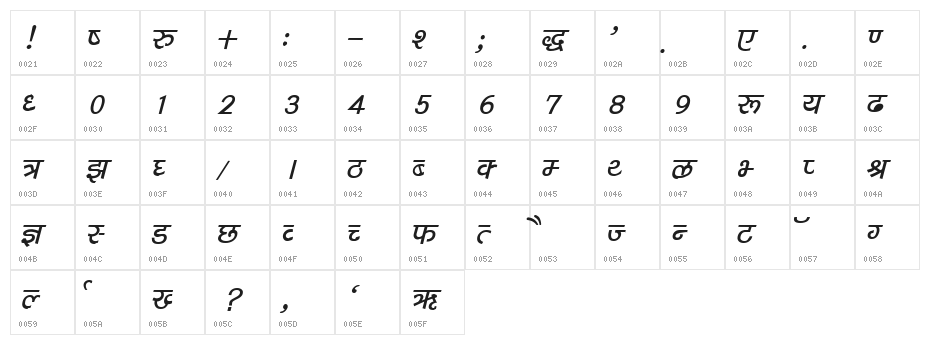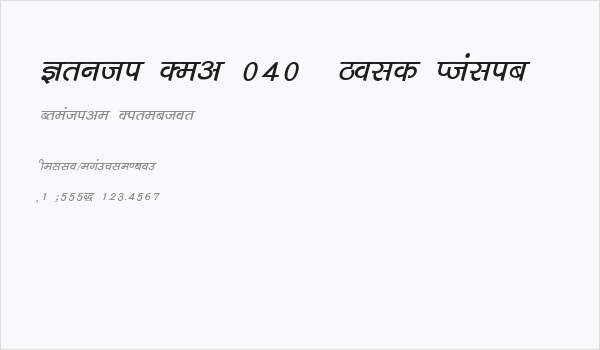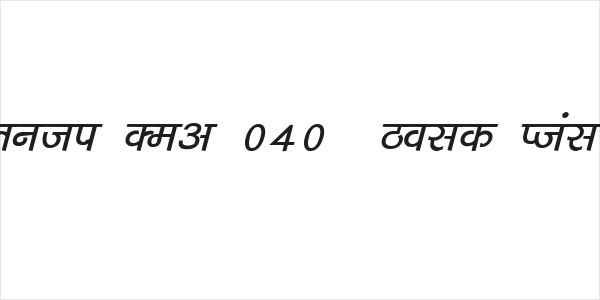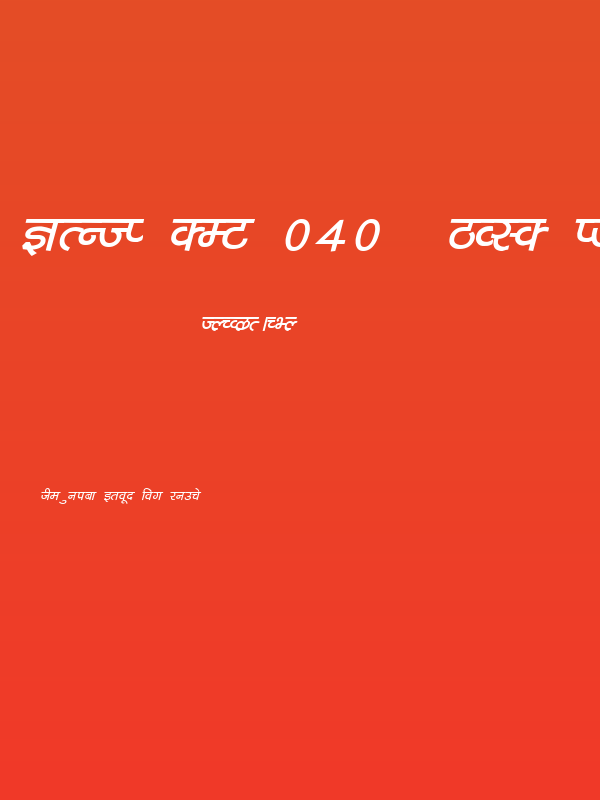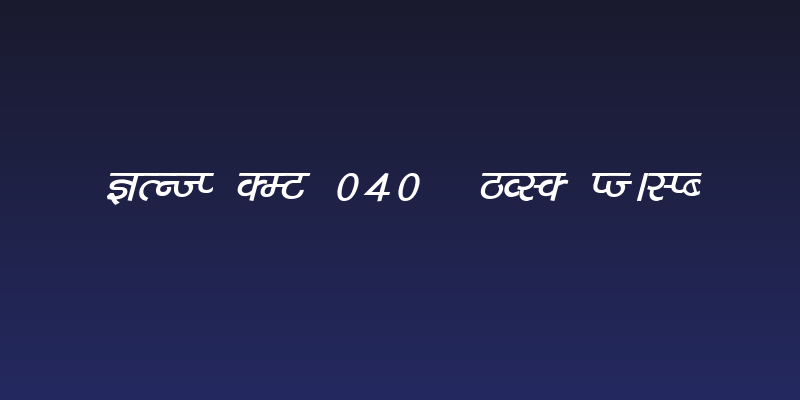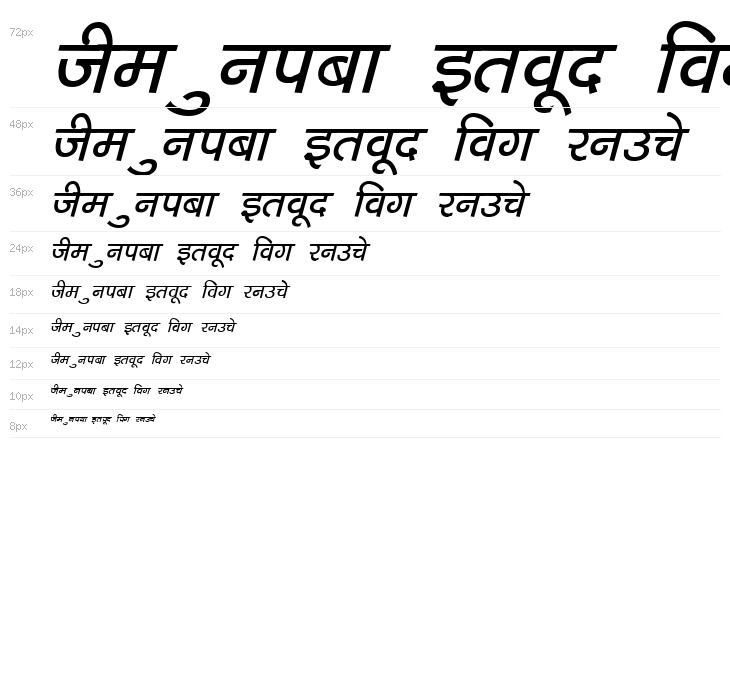
Kruti Dev 040 Bold Italic Font
Kruti Dev 040 Bold Italic Description
This font is a bold and italicized typeface that features a distinct and flowing script style, commonly used for writing in the Devanagari script. The characters are well-defined with a noticeable slant, giving it a dynamic and expressive appearance. The strokes are thick, contributing to its boldness, while the italicization adds a sense of movement and elegance. The font maintains a consistent weight throughout, ensuring readability while preserving its decorative nature. It is suitable for various applications where a traditional yet lively script is desired.
| Use Case | Headlines, Logos, Decorative text |
| Proposed Projects | Ideal for traditional invitations, cultural event posters, and decorative headings in publications using Devanagari script. |